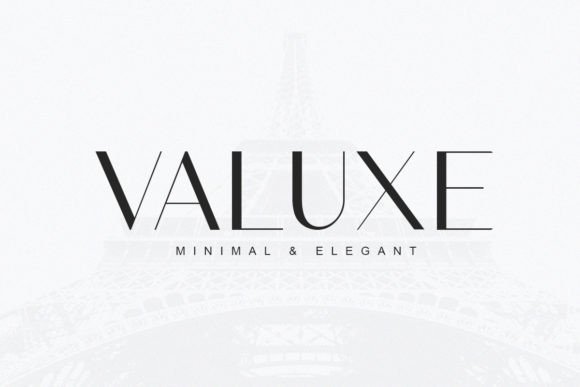
Valuxe Font is the perfect solution for those seeking the best font for modern resumes. This minimalist sans serif is designed by Tammami to bring elegance and style to any professional document.
Valuxe is more than just a font; it's a statement of modernity and sophistication. Its sleek and clean lines make it the ideal choice for anyone looking to stand out from the crowd. With Valuxe, you won't just be presenting your resume; you'll be presenting yourself.
The font's versatility is unmatched. Valuxe pairs effortlessly with basic fonts like Arial and any script font with an elegant style. This makes it easy to use in a variety of applications, from resumes to business cards and even website design.
But don't just take our word for it. Valuxe has already won the hearts of countless professionals around the world. With its unique blend of modern design and minimalist style, it's no wonder why Valuxe is quickly becoming the go-to font for those looking to make an impact.
Valuxe isn't just a font; it's a game-changer. It's the perfect choice for anyone looking to elevate their professional image and make a lasting impression. So why settle for a boring font when you can choose Valuxe?